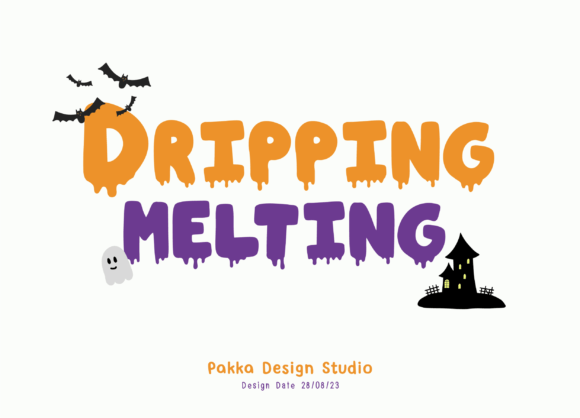
Unlock the Magic of Messy Creativity
Remember the thrill of watching a glob of melted wax slide down a candle, its colorful tendrils stretching and twisting in mid-air? Or the joy of splattering paint across a canvas, creating a unique, one-of-a-kind masterpiece? Those carefree moments of creative experimentation are what inspired the “Dripping Melting” display font.
This enchanting font embodies the spirit of playful exploration, where letters seem to melt and drip with whimsical charm. It’s the perfect addition to designs that celebrate the beauty of messiness, from children’s educational materials to artistic projects and advertisements that scream ‘fun’. The Dripping Melting Font adds a touch of artistic authenticity, conveying the sense of boundless creativity and imagination that comes with embracing the unknown.
Dripping Melting Font Key Features
- Unique Characteristics: Features a unique, dripping effect with melting elements, perfect for creative and artistic designs
Dripping Melting Font Review
Overall, I’d say the “Dripping Melting Font” has some great qualities, but it also has some limitations that might make it not suitable for every project.
- The font has a unique and eye-catching design, which is perfect for projects that need a touch of creativity and whimsy.
- The font is highly customizable, allowing you to adjust the size, color, and style to fit your specific needs.
- It’s great for use in logos, branding, and other visual identity projects where you want to make a statement.
- The font can be a bit too over-the-top for some projects, and might distract from the content rather than enhance it.
- It’s not ideal for body text, as it can be difficult to read and may cause eye strain.
- The font might not be suitable for formal or professional projects, as it has a more playful and casual feel.
Overall, I think the “Dripping Melting Font” is a great choice for projects that need a touch of creativity and whimsy, but it’s not for every project. With some careful consideration and planning, it can be a great addition to your design toolkit.
The Dripping Melting Font is perfect for:
Creating eye-catching headlines and titles.
Designing unique and creative graphics.
Adding a touch of whimsy and playfulness to your design.